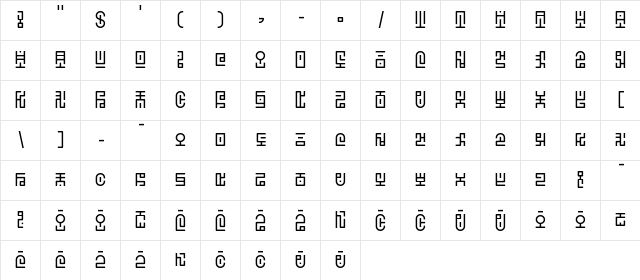
Deus Antics Regular
| Foundry | unoriginal |
| Designer | Jairo Pβez |
Design Context for Deus Antics Typeface
Deus Antics offers clean, dependable letterforms without strong stylistic allegiance, making it a practical choice for designers who need flexibility.